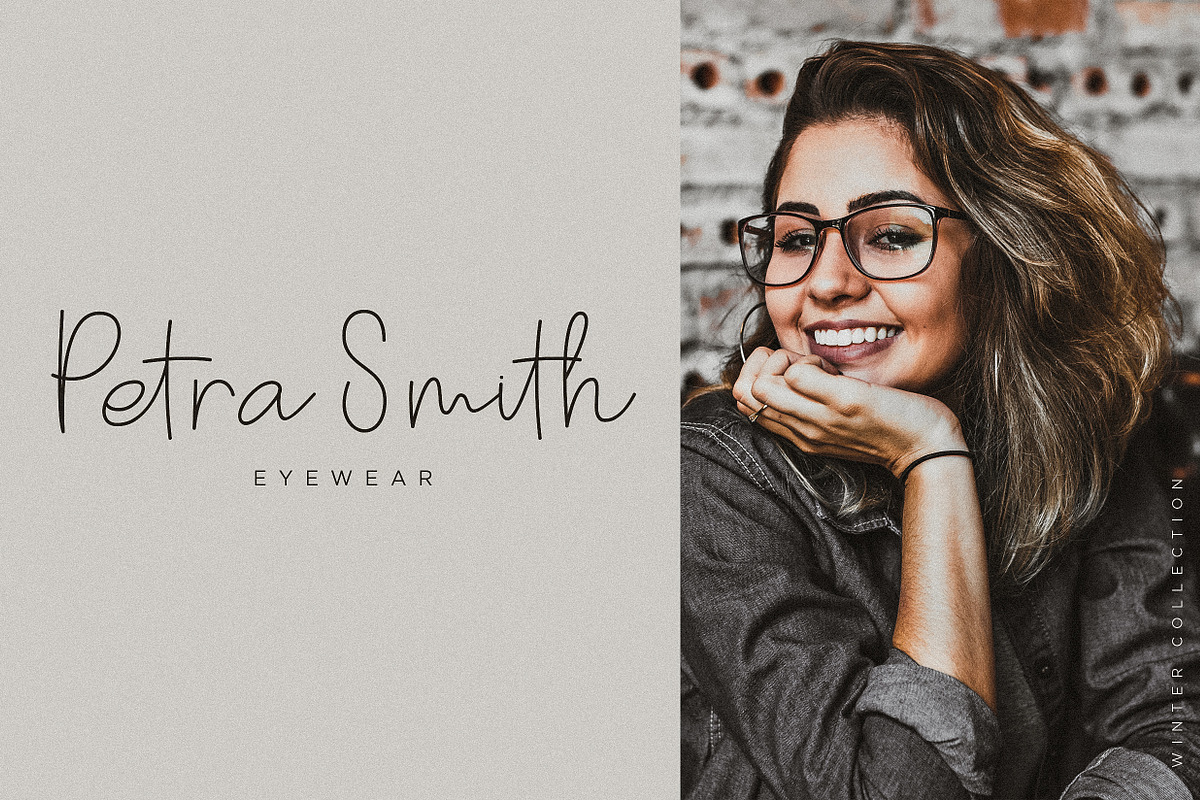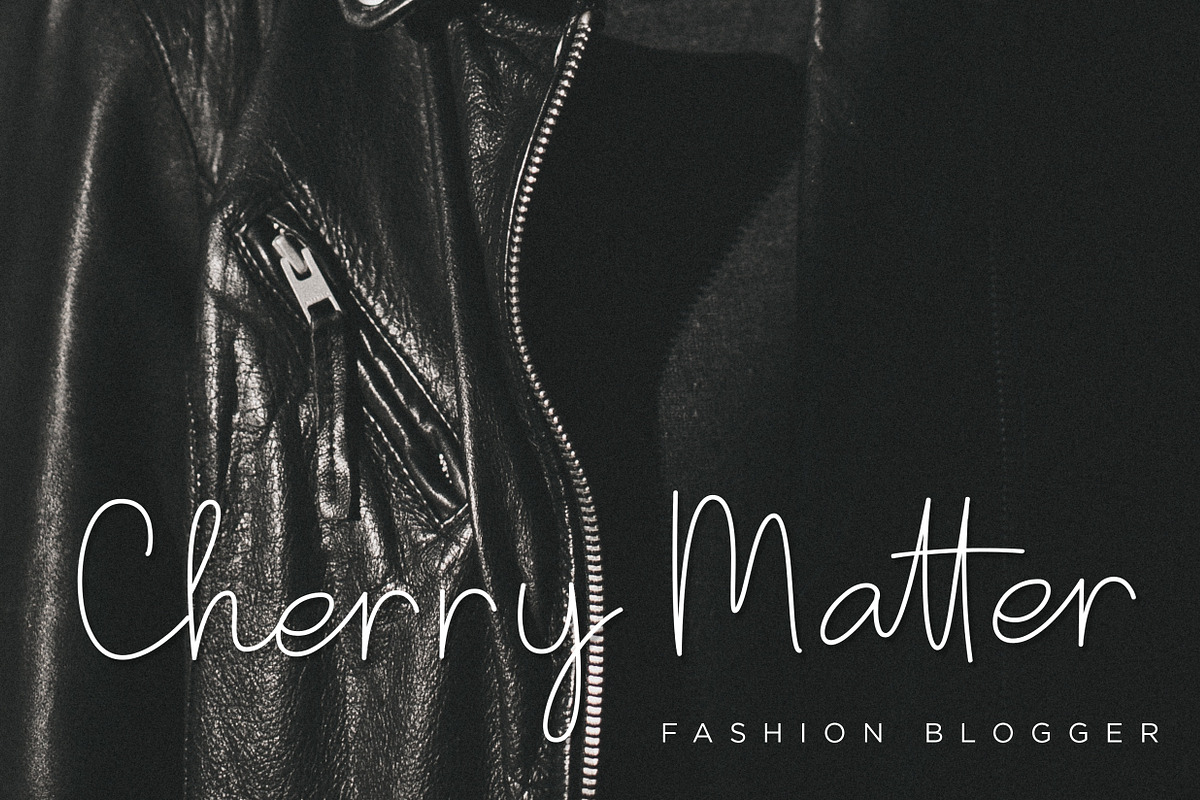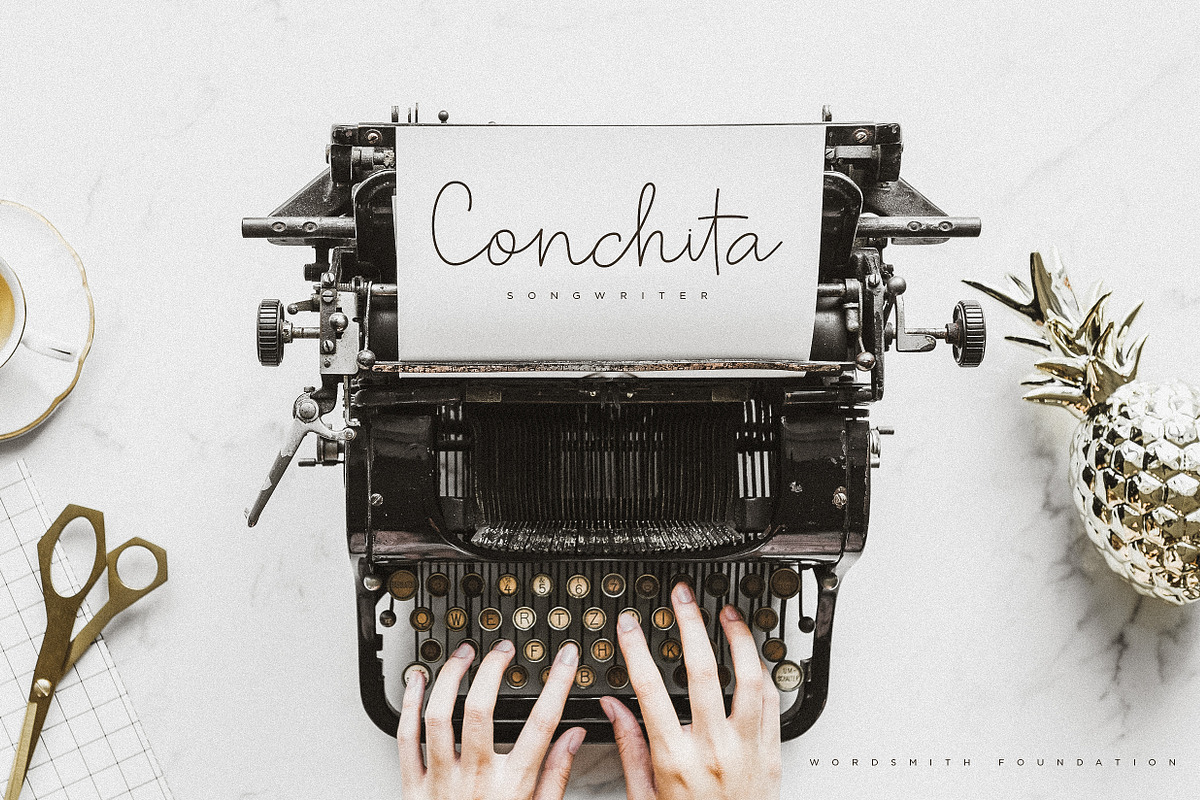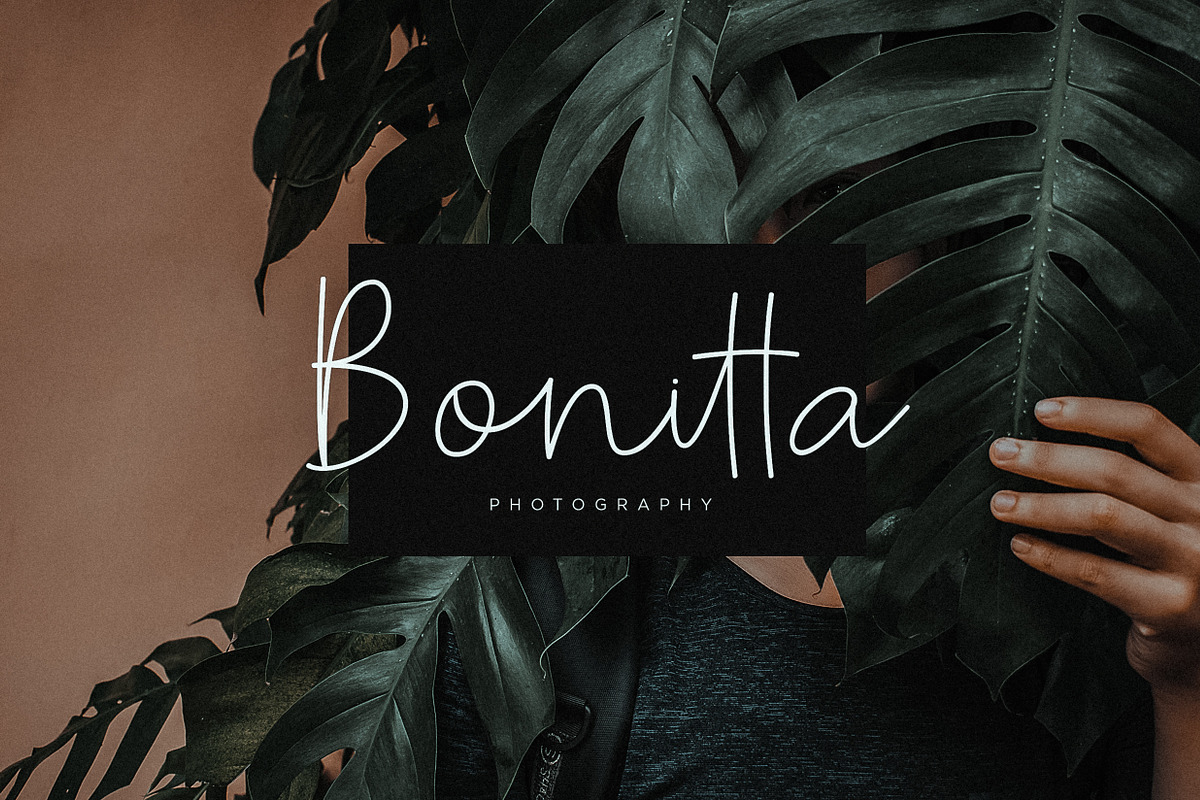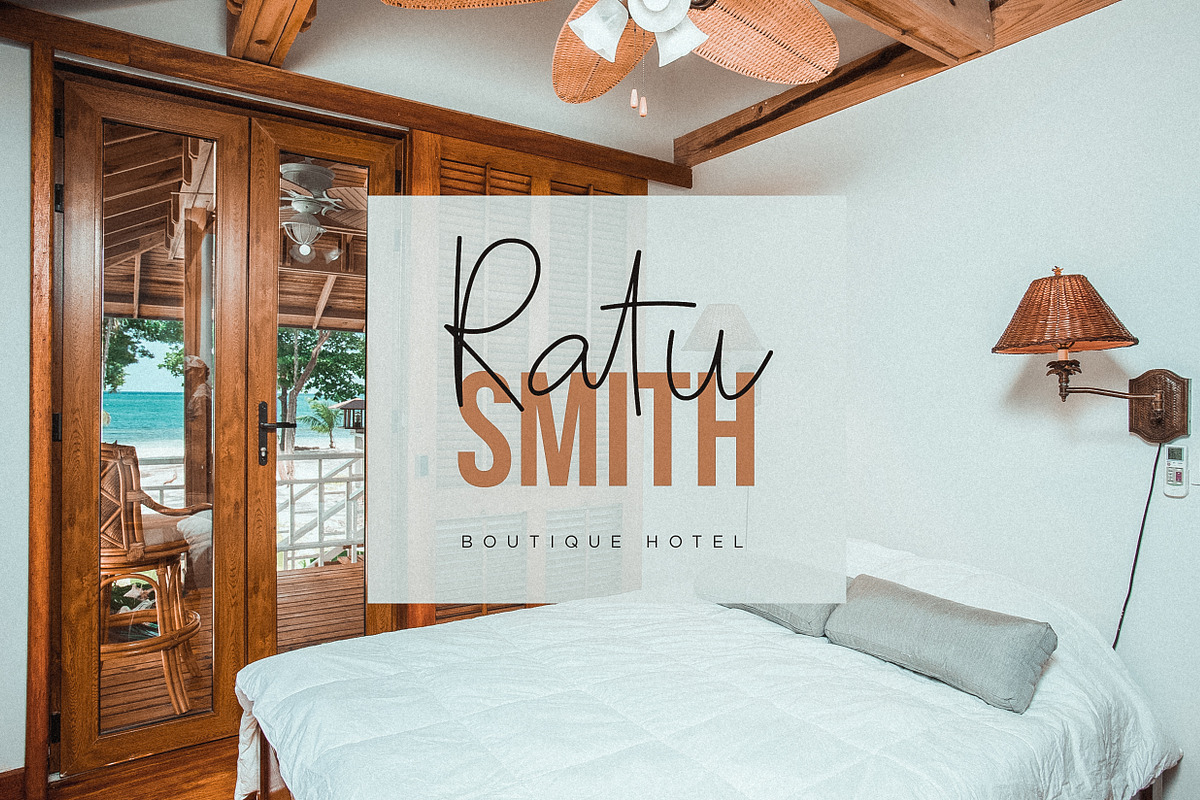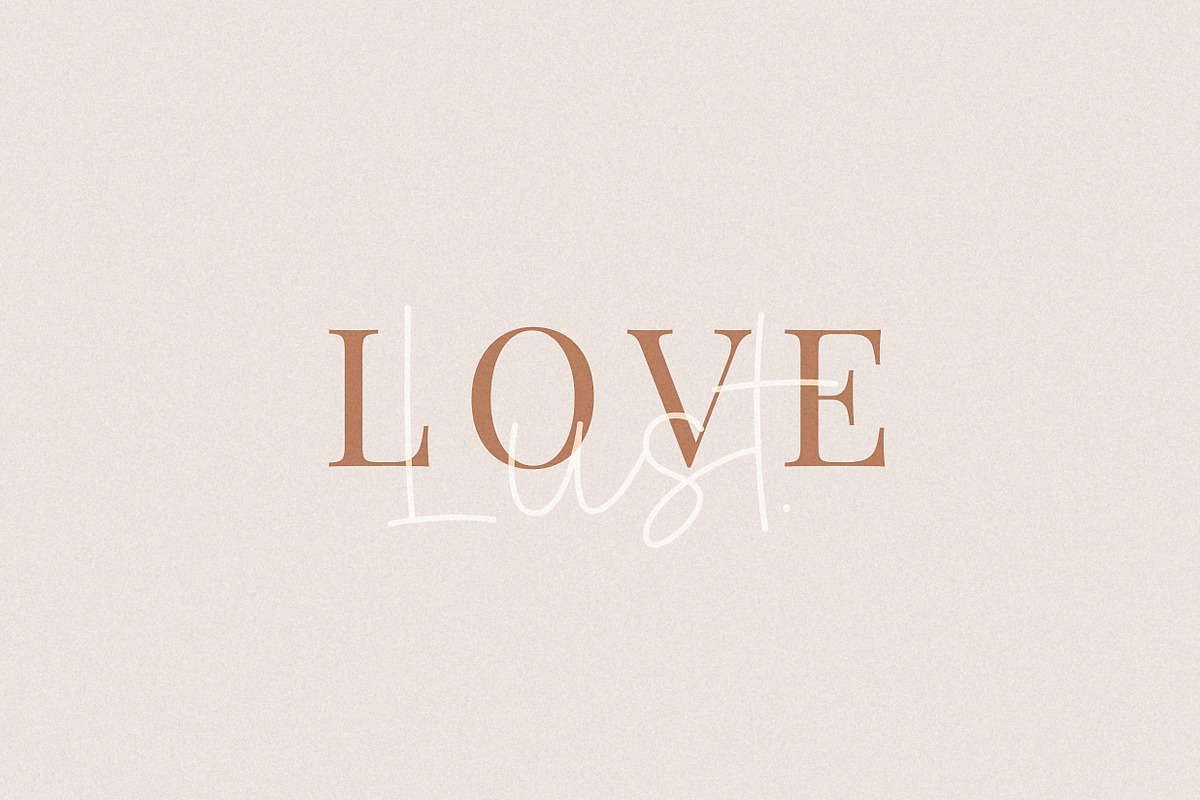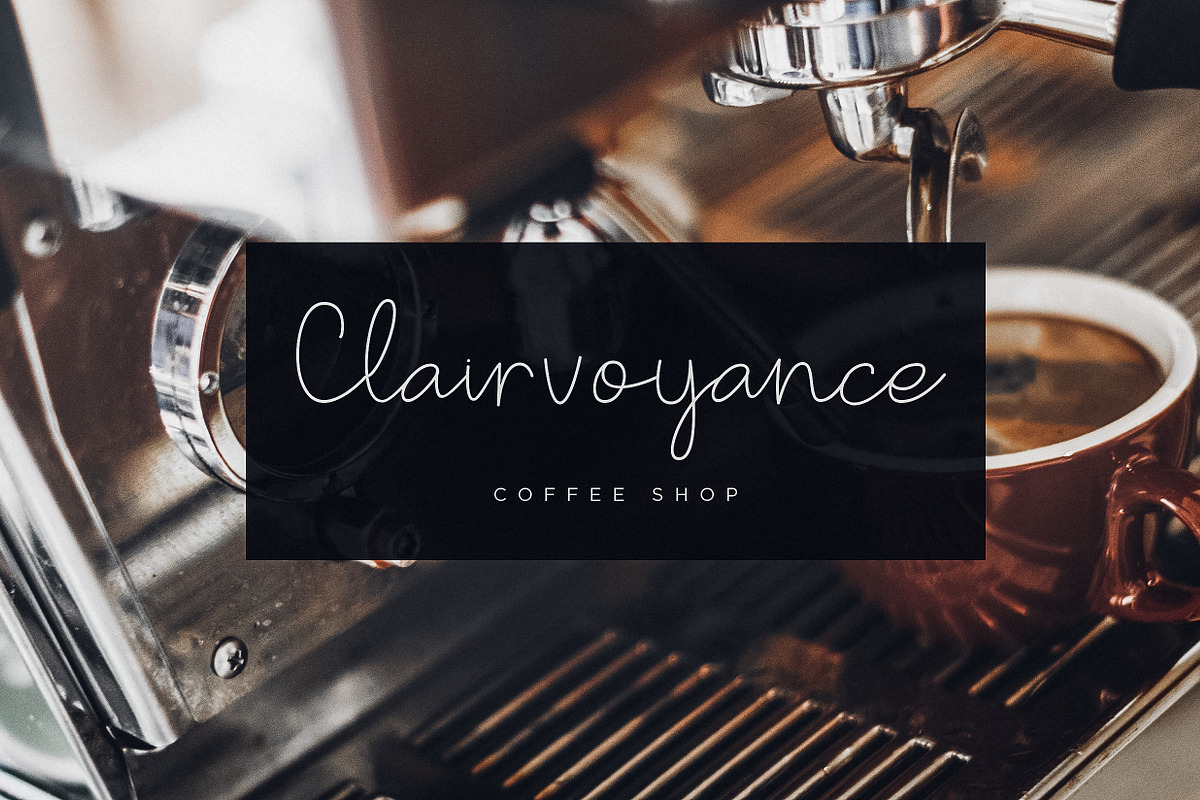
Badtaste - Elegant Signature Font
Another signature fonts, again anda again. Yes we know what you feel, thats just the same with us. But please dont get bored with it. Let us drop some because, yeah why not.
Say hello to Badtaste. A typical and usual handwritten a.k.a signature font. And of course with a bunch of ligatures to seamlessly mimicking the real handwriting feels (check out the preview image).
Oh yes of course, a branding with this font will be a good choice. Vintage, feminine, classy, elegant, formal, casual, logo, social media, you name it. Will be a good pair for contrast serif font or light sans-serif font.
- And of course with a bunch of ligatures to seamlessly mimicking the real handwriting feels (check out the preview image).